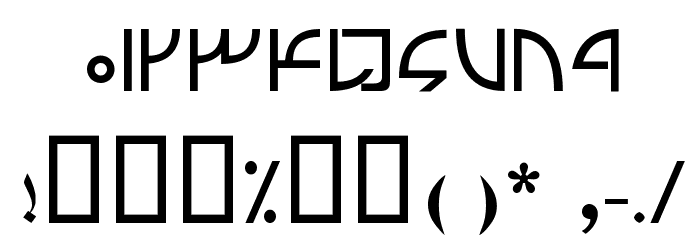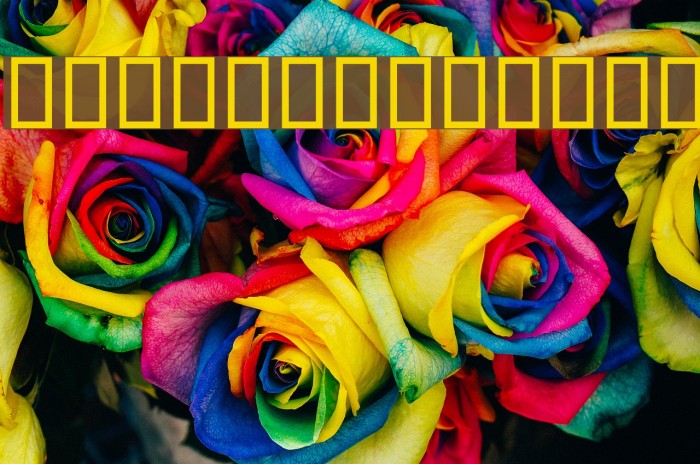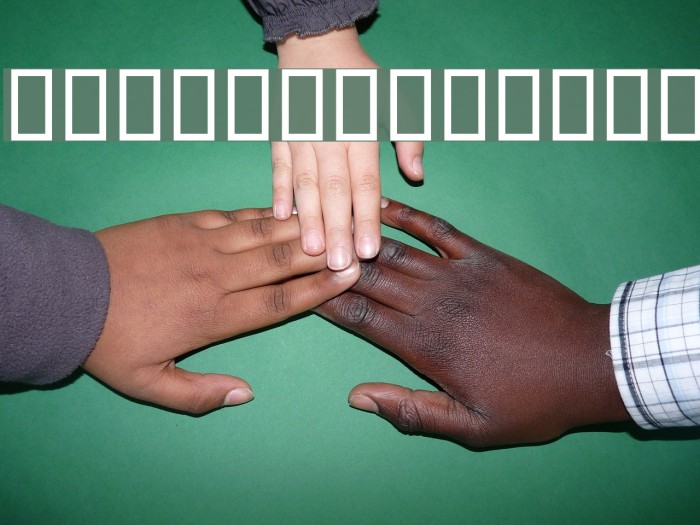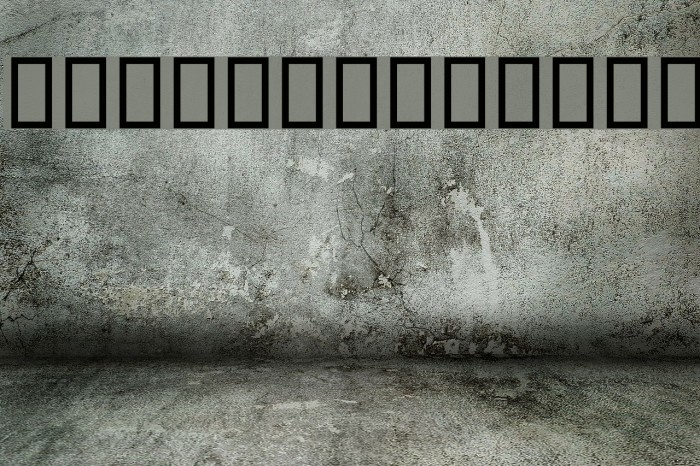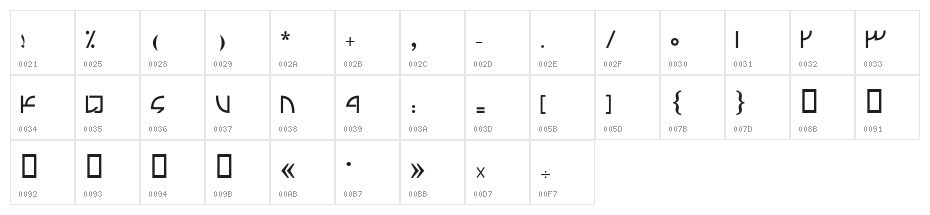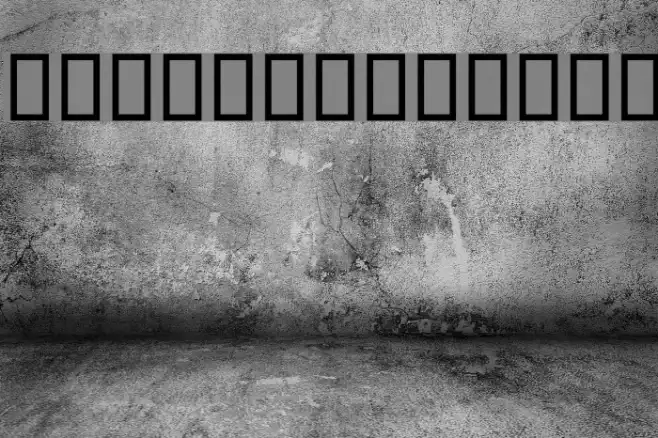
Bayaat Font
This font features a unique and modern design with a futuristic aesthetic. The characters are crafted with a geometric style, incorporating sharp angles and clean lines. The uppercase and lowercase letters maintain a consistent height, creating a uniform appearance. The numerals and special characters follow the same design principles, ensuring a cohesive look across all elements. This font's distinct style makes it suitable for projects that require a contemporary and innovative touch.
A futuristic, geometric font with sharp angles and clean lines.
- Proposed Projects: Ideal for technology branding, sci-fi movie posters, modern art installations, and innovative product packaging.
- Use Case: Logos, Posters, Branding